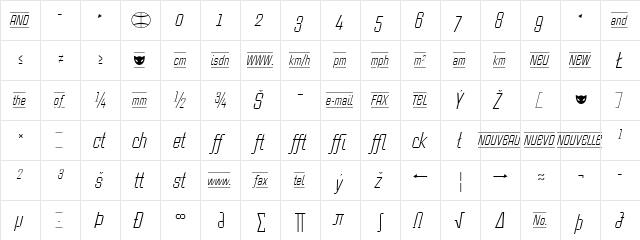
CaseStudyNoOne LT Light Italic Font Preview
| Style | Light Italic |
| Foundry | Linotype Library GmbH or its affiliated companies |
Design Context for CaseStudyNoOne LT Typeface
CaseStudyNoOne LT is a composed and adaptable typeface that performs quietly and consistently across a wide range of design contexts. The dynamic lean of this cut emphasises speed and emphasis in any layout. Its slender proportions lend an understated elegance to any composition.